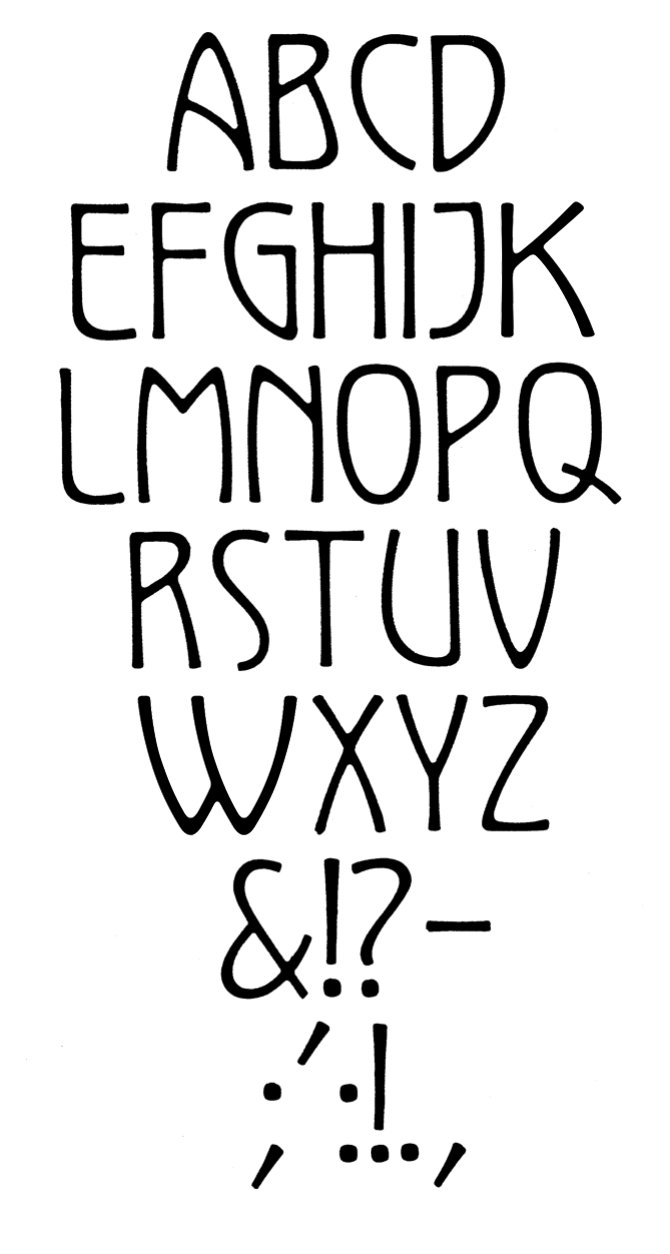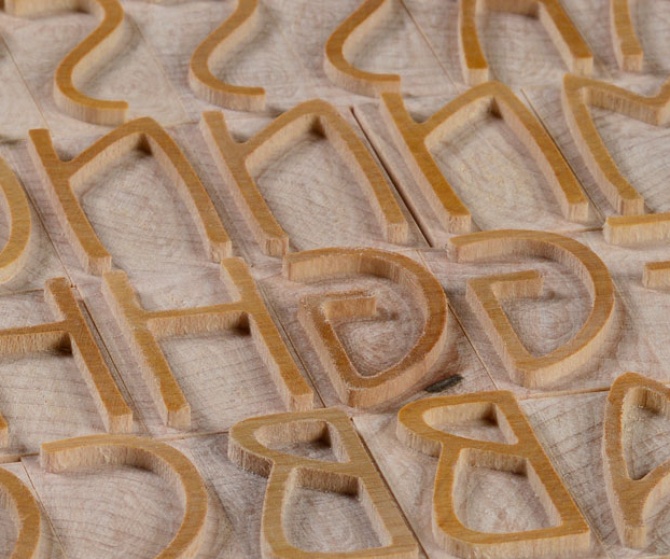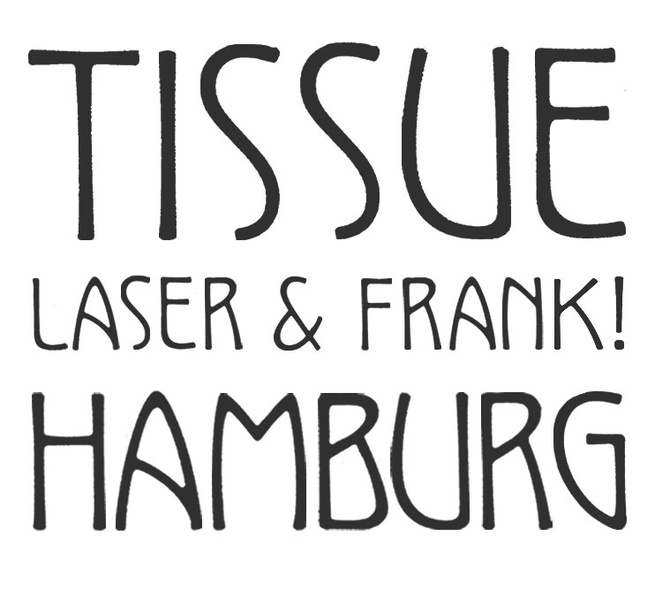
After meeting Bill and Geri at the 2011 Hamilton Wayzgoose, Paul Shaw decided to make available one of his designs in wood type. This font was inspired by Koloman Moser, Gustavo Klimt, Alfred Roller and other members of the Vienna Secession, Vienna's turn-of-the-century Art Nouveau movement. The design provides an elegant and subtle depiction of the Art Nouveau style.